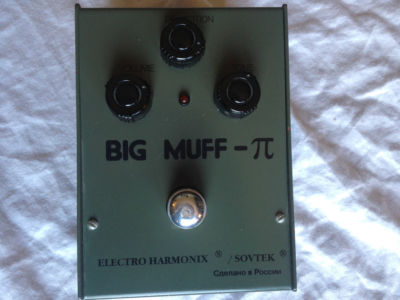
On the M in muff it the stroke goes up and then when it comes down to the right it goes further and the up stroke starts in the middle of the down stroke.
The Big Muff Pi pedals are affectionately referred to by their font but only in a generality. This one is referred to as the "Bubble Font" They used to use a modified ITC Pioneer at one point and also had what they called a "tall font". Unfortunately, I can't seem to find the actual name of the font for you. Sorry...